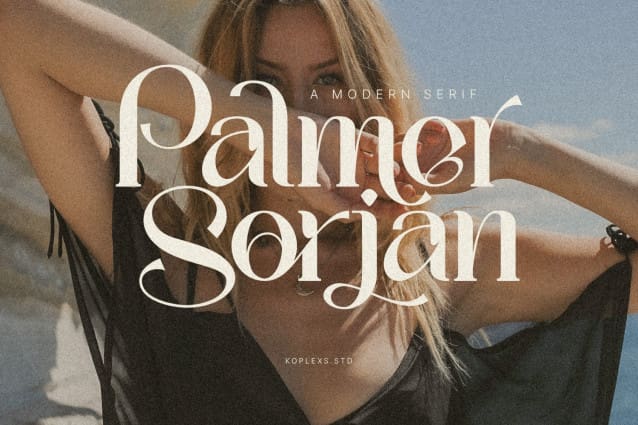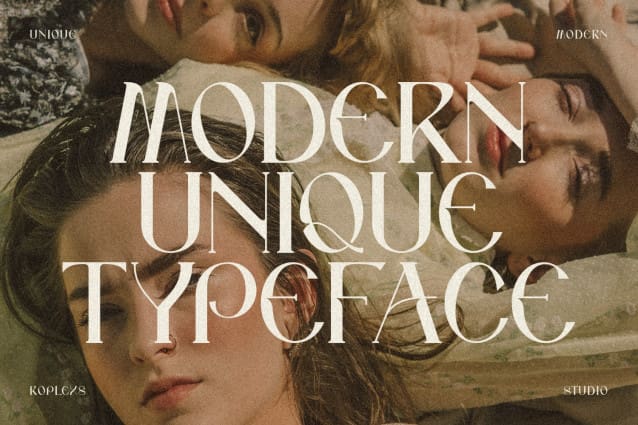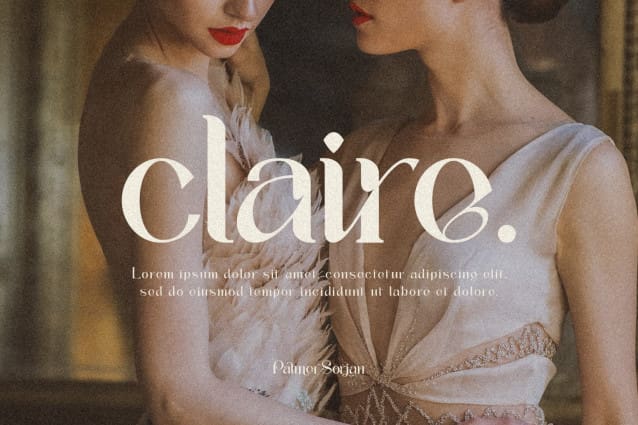
Palmer Sorjan Serif Font
Palmer Sorjan Serif Font – A Modern Serif with beautiful ligatures, Unique alternative , multilingual support with perfect kerning, classy characters, giving you a unique look for any branding or design need.
Palmer Sorjan Serif Font is perfect for an elegant & luxury logo , classy editorial design, women’s magazine, fashion brand , cosmetic brand, fashion promotion , modern advertising design, invitation card, art quote, home decoration , book/cover titles, special events, and much more.